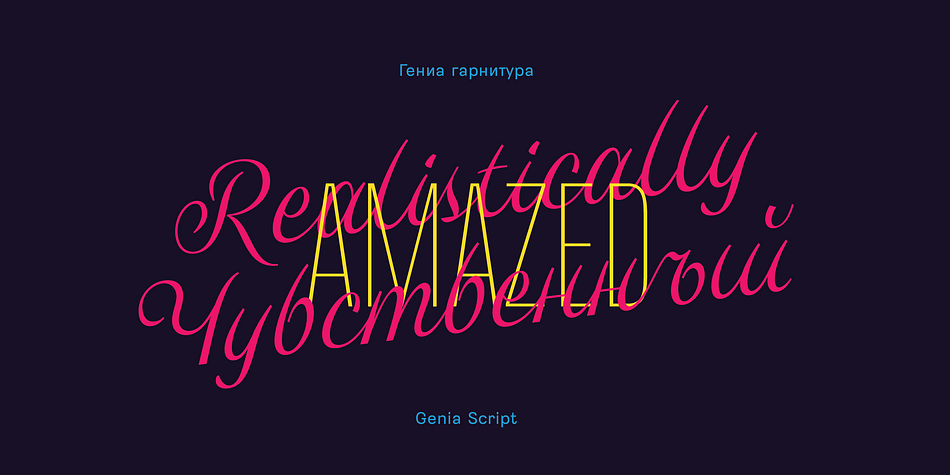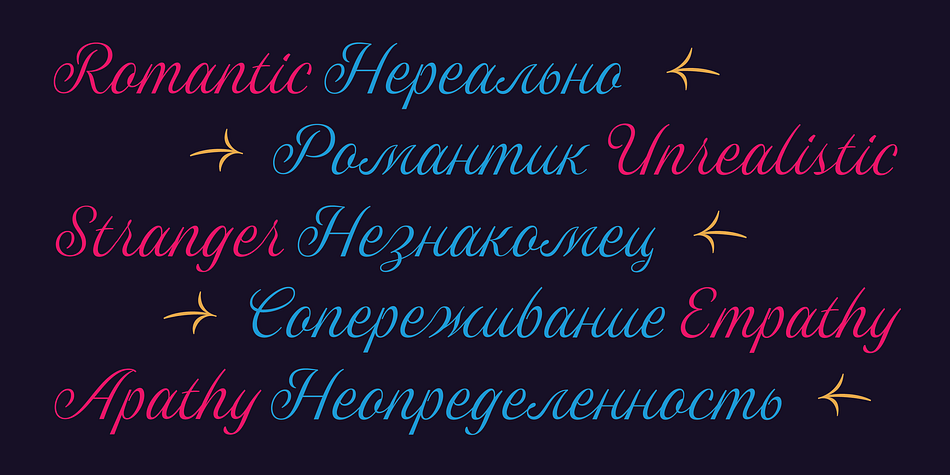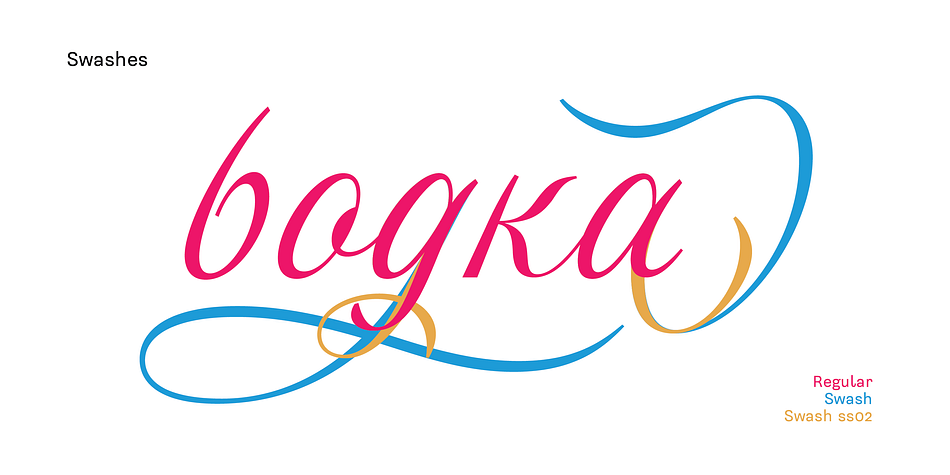
Genia
Designed by Fadhl Waliy Ul Haqq, Genia is a script font published by Akufadhl.
Genia is a script typeface that carry the roundhand calligraphy DNA. Instead of using pointed nib pen, genia was created using a fine brush resulting in clean and wavy character. and with the opentype features genia give a natural feel of calligraphy writing, this contextual feature makes the font ‘smart’. it know wich letter are the initial and wich one is the finial. the feature can be activated in the opentype section under the names of CALT or Contextual Alternates. Genia also give you an Old styled number figures and the proportional one.
Genia, ‘where the romance begin’